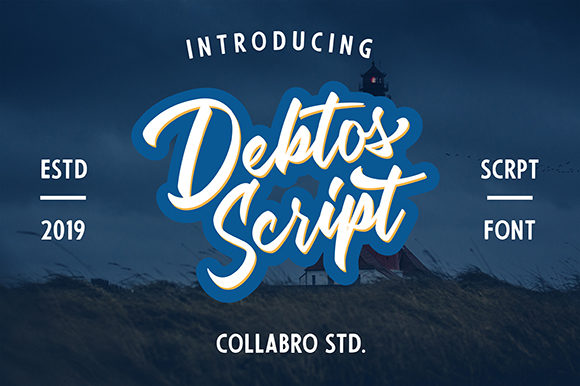
Introducing Debtos Script Font: Add a Touch of Personal Charm to Your Designs
In the world of typography, fonts play a crucial role in conveying the tone and personality of a brand or design. If you’re looking for a unique and eye-catching font to add a personal touch to your projects, look no further than Debtos Script Font. This original hand-drawn font is designed to bring a sense of warmth and character to your designs, making it perfect for a wide range of applications.
What is Debtos Script Font?
Debtos Script Font is a carefully crafted, hand-drawn font that boasts an amazing handwritten look. Its unique and organic feel makes it an excellent choice for designers who want to add a touch of personality to their work. Whether you’re creating logos, branding materials, t-shirts, prints, posters, or any other design project, Debtos Script Font is sure to make a lasting impression.
The Characteristics of Debtos Script Font
So, what sets Debtos Script Font apart from other fonts? Here are some of its key characteristics:
- Hand-drawn: Debtos Script Font is an original hand-drawn font, which gives it a unique and personal feel.
- Handwritten look: The font has an amazing handwritten look that adds a touch of warmth and character to your designs.
- Vintage aesthetics: Debtos Script Font is perfect for adding vintage aesthetics to your designs, making it ideal for projects that require a retro or nostalgic feel.
- Versatile: This font is versatile and can be used for a wide range of applications, from logos and branding materials to t-shirts, prints, posters, and more.
Uses of Debtos Script Font
Debtos Script Font is an incredibly versatile font that can be used for various design projects. Here are some of the ways you can use this font:
- Logos: Create unique and memorable logos that stand out from the crowd with Debtos Script Font.
- Branding materials: Use Debtos Script Font to add a personal touch to your branding materials, such as business cards, brochures, and letterheads.
- T-shirts and apparel: Add a vintage touch to your t-shirts and apparel designs with Debtos Script Font.
- Prints and posters: Create eye-catching prints and posters that grab attention with Debtos Script Font.
- Digital media: Use Debtos Script Font in your digital media, such as social media graphics, email newsletters, and website headers.
Benefits of Using Debtos Script Font
So, why should you choose Debtos Script Font for your design projects? Here are some of the benefits of using this font:
- Unique and eye-catching: Debtos Script Font is a unique and eye-catching font that will make your designs stand out from the crowd.
- Personal touch: This font adds a personal touch to your designs, making them more relatable and engaging.
- Vintage aesthetics: Debtos Script Font is perfect for adding vintage aesthetics to your designs, which can help to evoke emotions and create a sense of nostalgia.
- Versatile: This font is versatile and can be used for a wide range of applications, making it a great addition to your font library.
Tips for Using Debtos Script Font
Here are some tips for using Debtos Script Font effectively in your design projects:
- Use it sparingly: Use Debtos Script Font sparingly to avoid overwhelming your design. It’s best to use it as an accent font to add a touch of personality.
- Pair it with other fonts: Pair Debtos Script Font with other fonts to create a unique and visually appealing combination.
- Experiment with colors: Experiment with different colors to find the perfect combination that complements your design.
- Keep it legible: Make sure to keep your text legible by using a font size that’s easy to read.
In conclusion, Debtos Script Font is a unique and eye-catching font that can add a personal touch to your design projects. Its hand-drawn and handwritten look makes it perfect for adding vintage aesthetics to your logos, branding materials, t-shirts, prints, posters, and more. With its versatility and range of uses, Debtos Script Font is a great addition to any font library.